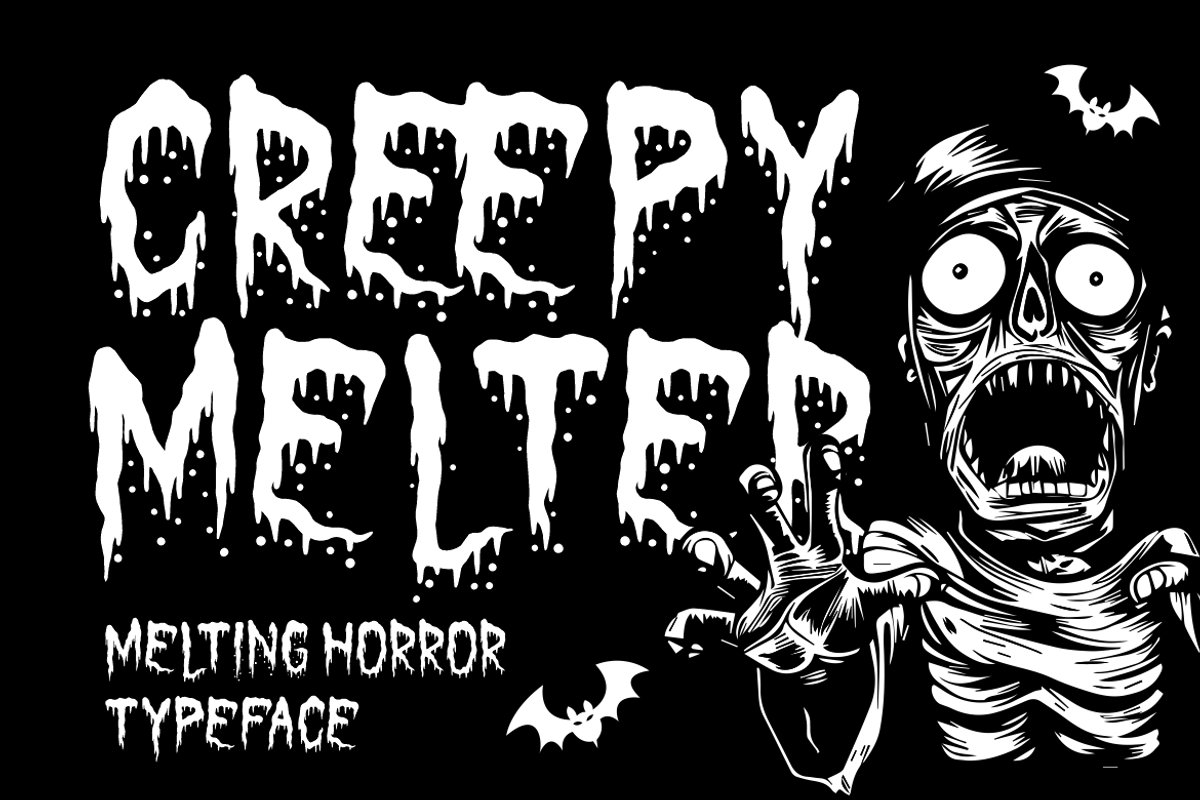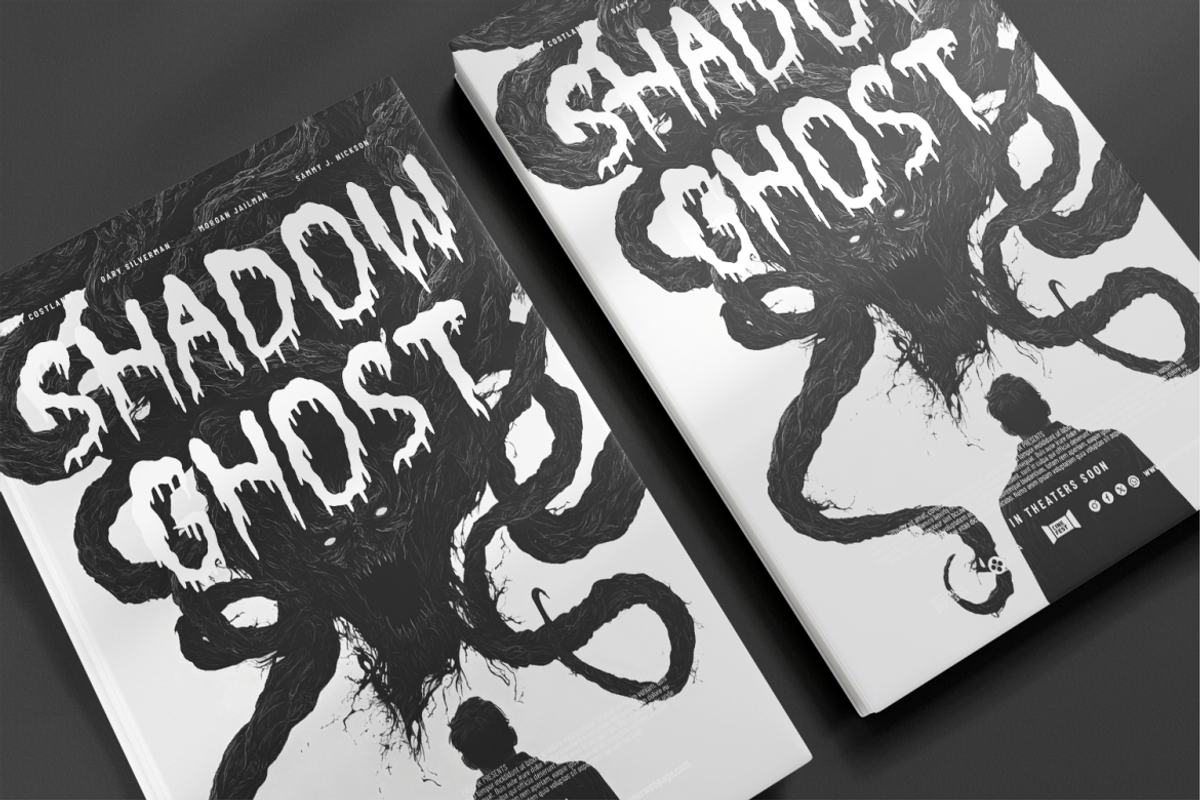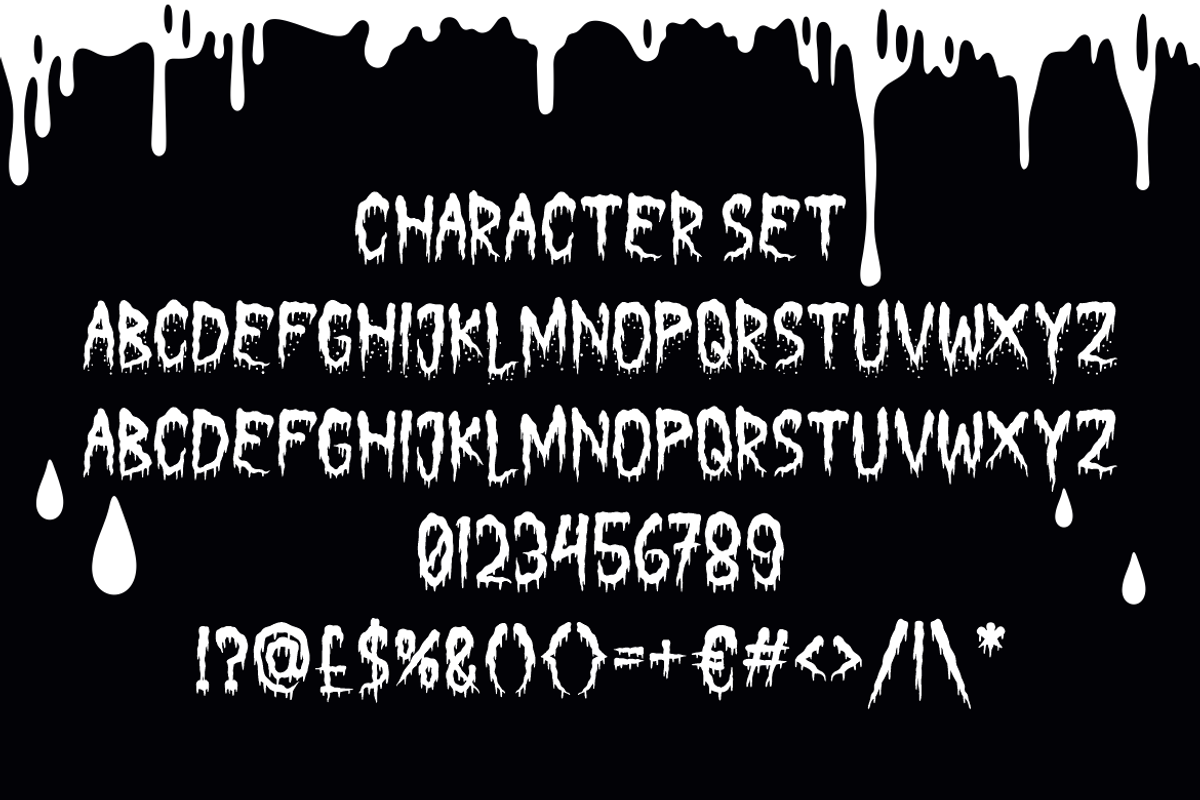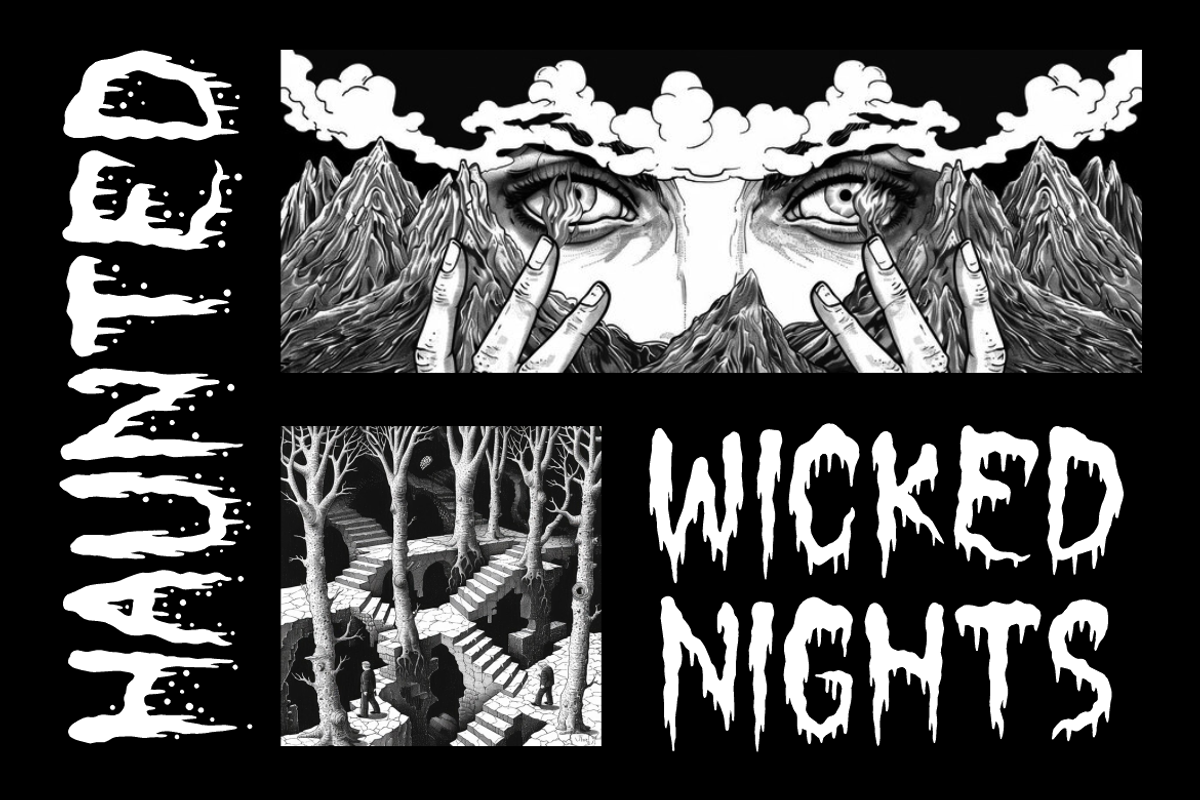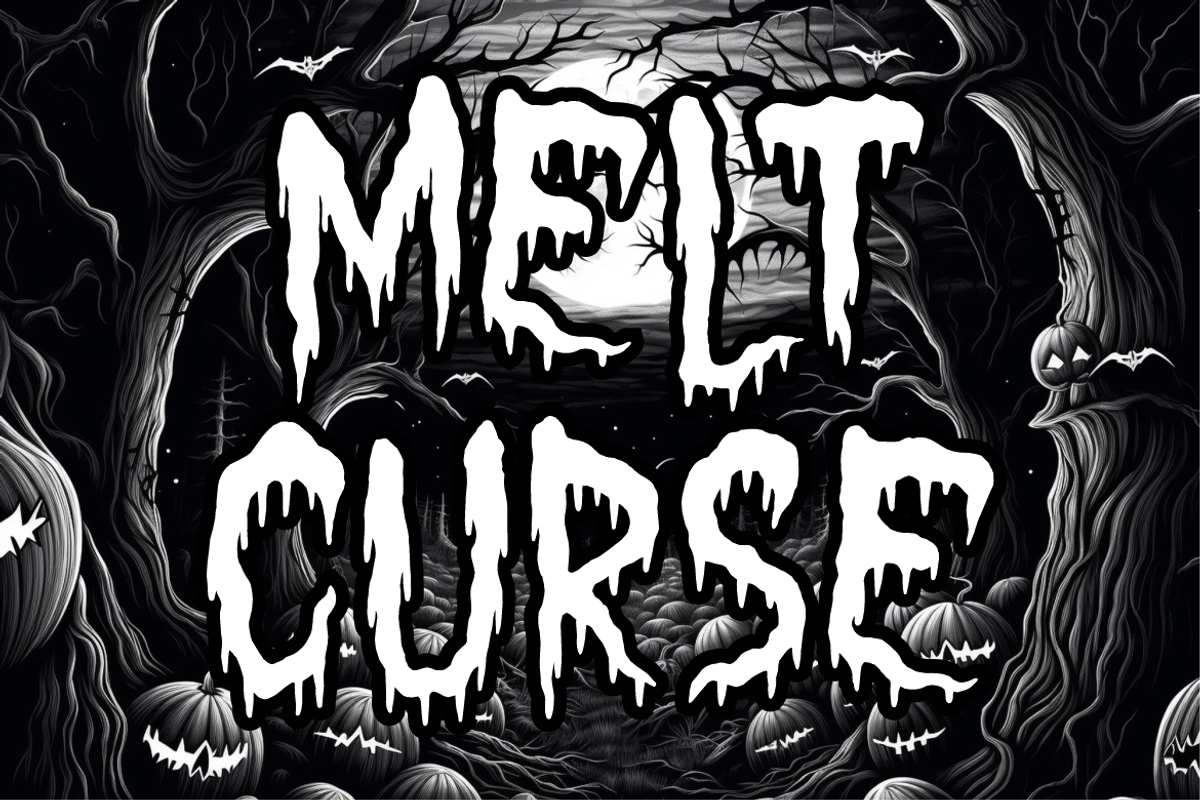
Creepy Melter Horror Font
Creepy Melter Horror Font is a terrifyingly bold typeface designed to ooze fear and grab attention. Inspired by classic horror aesthetics and melting goo textures, each letter appears to drip with dread—perfect for projects that demand visual shock and eerie atmosphere. The uppercase characters are deformed with jagged, organic edges and melting streaks, evoking blood, wax, or slime. Whether used on posters, book covers, or Halloween packaging, this font creates a haunting and unforgettable visual experience.
The font is presented in an all-caps structure with two variations for added diversity. Special characters, numbers, and punctuation are crafted to complement the horror style, ensuring thematic consistency. The layout showcases bold kerning and slightly irregular baseline placement, giving it a handcrafted, chaotic feel. Creepy Melter is ideally suited for movie titles, horror branding, scary sticker packs, dark-themed magazines, party invitations, and more. It’s not just a font—it’s a scream waiting to be heard.